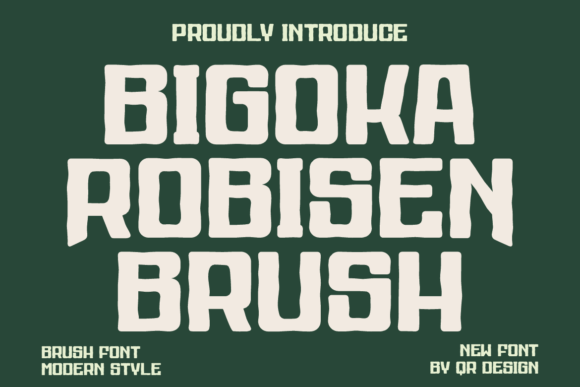
Introducing Bigoka Robisen Brush Font: The Ultimate Display Font for Bold Branding
In the world of typography, fonts play a crucial role in shaping the identity of a brand. A well-chosen font can elevate a brand’s visual appeal, convey its personality, and leave a lasting impression on its audience. If you’re looking for a font that can add a touch of boldness and authenticity to your branding projects, look no further than Bigoka Robisen Brush Font. In this article, we’ll explore the features, benefits, and uses of Bigoka Robisen Brush Font, and why it’s an excellent choice for any branding project.
What is Bigoka Robisen Brush Font?
Bigoka Robisen Brush Font is a bold and authentic display font designed to make a statement. Its unique brush-like strokes and bold letterforms make it perfect for creating eye-catching headlines, logos, and titles. The font is versatile and can be used in a wide range of contexts, from food branding to fashion, and from advertising to packaging.
Key Features of Bigoka Robisen Brush Font
- Bold and Authentic: Bigoka Robisen Brush Font is designed to be bold and authentic, making it perfect for brands that want to make a statement.
- Brush-like Strokes: The font features unique brush-like strokes that give it a hand-crafted feel.
- Versatile: The font is versatile and can be used in a wide range of contexts, from digital to print.
- Easily Readable: Despite its boldness, Bigoka Robisen Brush Font is easily readable, making it perfect for headlines and titles.
Benefits of Using Bigoka Robisen Brush Font
Using Bigoka Robisen Brush Font can bring numerous benefits to your branding projects. Here are a few:
- Stand Out from the Crowd: Bigoka Robisen Brush Font is designed to make a statement, helping your brand stand out from the competition.
- Convey Brand Personality: The font’s bold and authentic feel can help convey your brand’s personality and values.
- Increase Brand Recognition: The font’s uniqueness can help increase brand recognition and make your brand more memorable.
- Flexibility: Bigoka Robisen Brush Font can be used in a wide range of contexts, making it a great investment for any brand.
Use Cases for Bigoka Robisen Brush Font
Bigoka Robisen Brush Font is suitable for any branding project that requires a bold and authentic display font. Here are a few use cases:
- Logo Design: The font is perfect for creating eye-catching logos that make a statement.
- Food Branding: Bigoka Robisen Brush Font is great for food branding, adding a touch of warmth and authenticity to your brand.
- Advertising: The font is perfect for creating bold and attention-grabbing headlines for advertising campaigns.
- Packaging: Bigoka Robisen Brush Font can be used on packaging to add a touch of personality and make your product stand out.
Tips for Using Bigoka Robisen Brush Font
Here are a few tips for using Bigoka Robisen Brush Font effectively:
- Use it Boldly: Bigoka Robisen Brush Font is designed to be bold, so don’t be afraid to use it as a headline or title.
- Pair it with Simple Fonts: Pair Bigoka Robisen Brush Font with simple fonts to create contrast and make your design more visually appealing.
- Experiment with Colors: The font looks great in bold colors, so experiment with different colors to find the one that works best for your brand.
In conclusion, Bigoka Robisen Brush Font is a bold and authentic display font that’s perfect for any branding project. Its unique brush-like strokes, versatility, and ease of readability make it a great choice for brands that want to make a statement. With its numerous benefits, use cases, and tips for effective use, Bigoka Robisen Brush Font is an excellent investment for any brand looking to elevate its visual appeal and convey its personality.